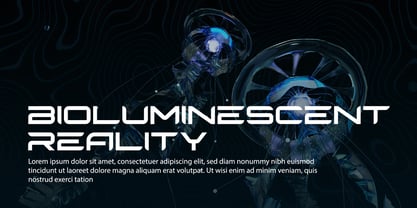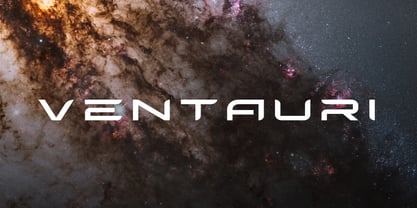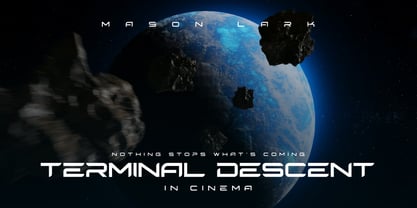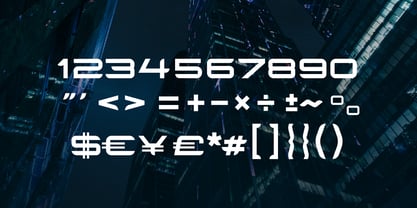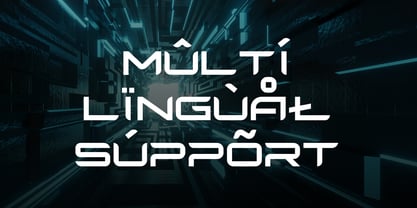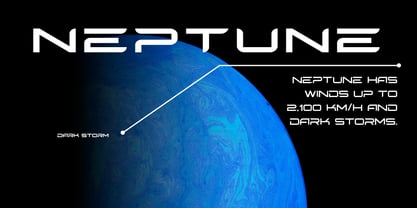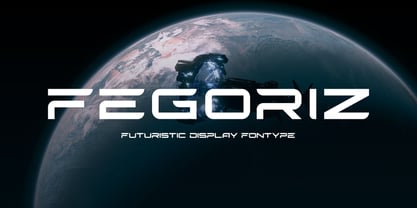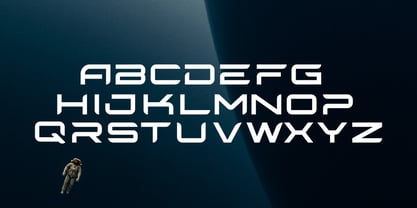
Fegoriz
by Yohanes Oktav
The Fegoriz Font Family was designed by Yohanes Oktavianus Aang and published by Yohanes Oktav. Fegoriz contains 3 styles and family package options. More about this family
Fegoriz is a bold, futuristic display font designed to provide your projects with a clean, modern, and cinematic presence. Its geometric structure combines sharp precision with smooth, futuristic curves, resulting in letterforms that feel engineered rather than simply drawn. The wide design and distinctive rhythm ensure that every word appears intentional, powerful, and forward-focused. Perfect for sci-fi titles, gaming visuals, tech branding, esports identity, posters, and digital interfaces, Fegoriz infuses a strong sense of momentum and innovation into any project. Utilize this font when you seek typography that exudes confidence, modernity, and an unmistakably future-driven aesthetic.
Designers: Yohanes Oktavianus Aang
Foundry: Yohanes Oktav